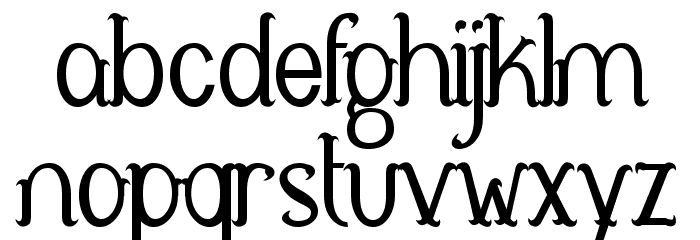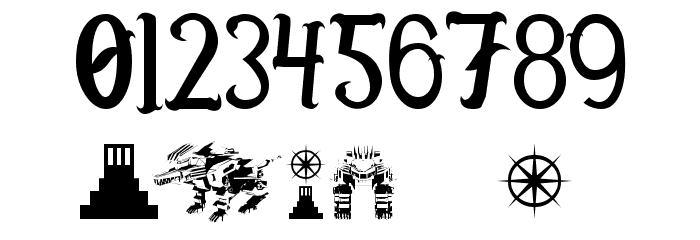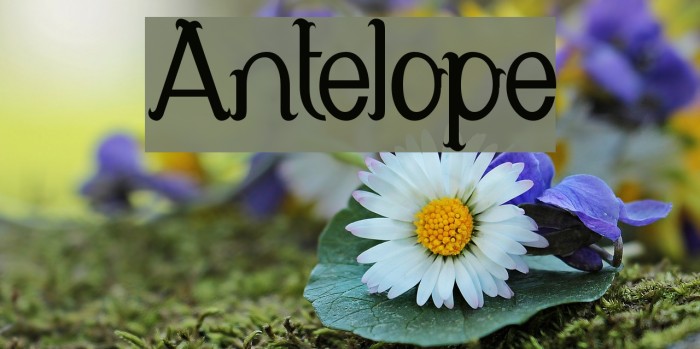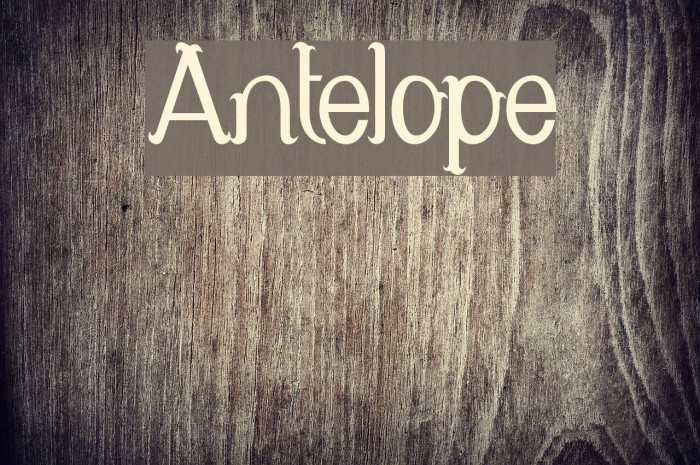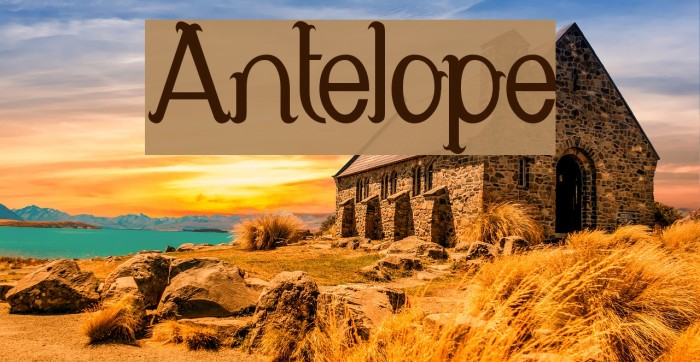
Antelope Font
This font features a unique blend of modern and vintage styles, characterized by its decorative and slightly whimsical design. The uppercase letters exhibit a bold and structured form with subtle curves, while the lowercase letters maintain a consistent flow with a playful touch. The numerals are distinct and easily readable, complementing the overall style. Special characters add an extra layer of creativity, making this font suitable for artistic and expressive projects. The font's design is both eye-catching and versatile, making it ideal for a variety of creative applications.
A decorative font with a blend of modern and vintage styles, featuring bold and whimsical characters.
- Proposed Projects: Ideal for branding, posters, artistic projects, and any design requiring a creative and expressive touch.
- Use Case: Headlines, Logos, Artistic projects